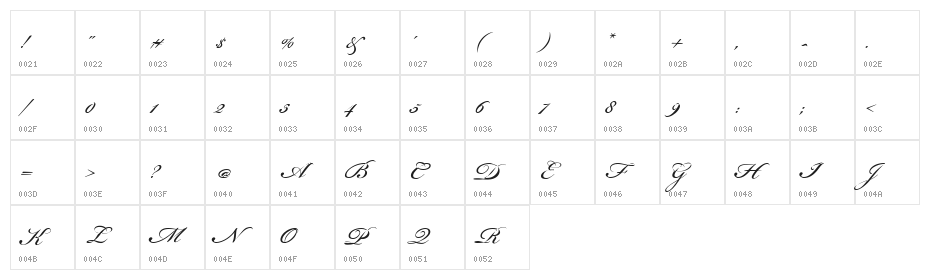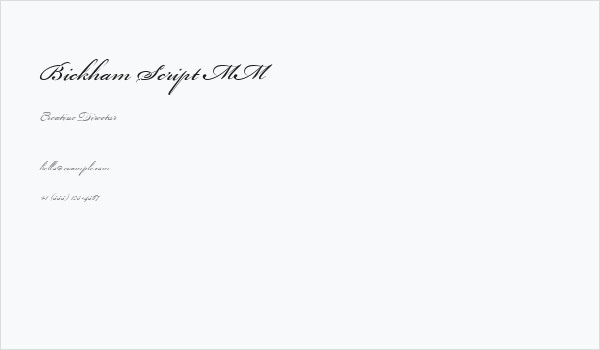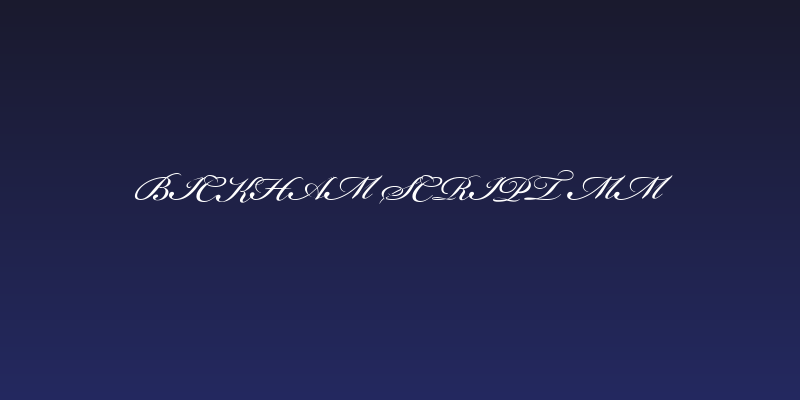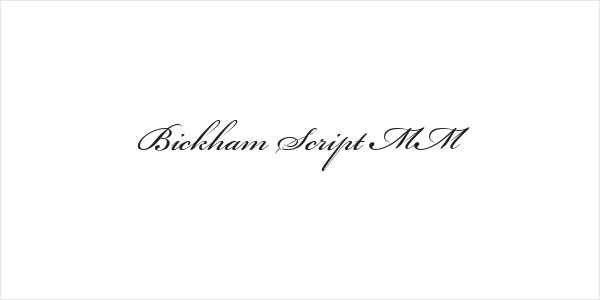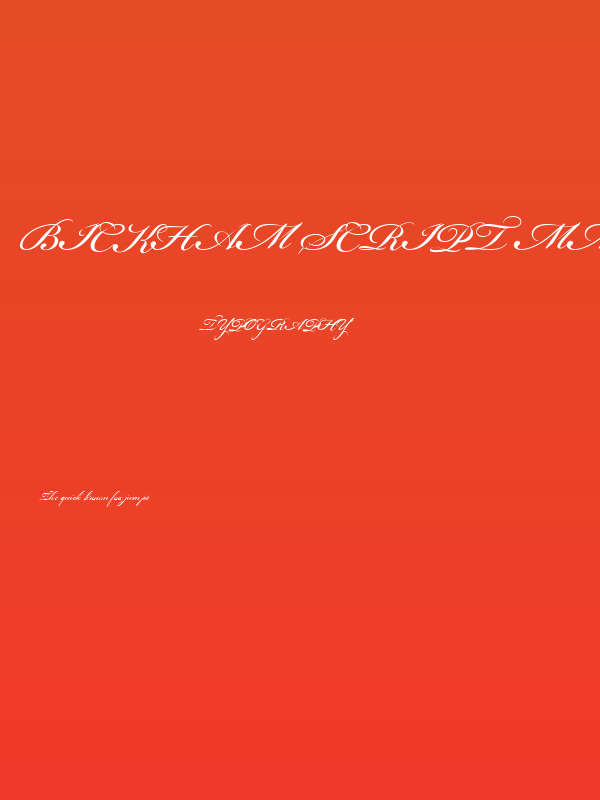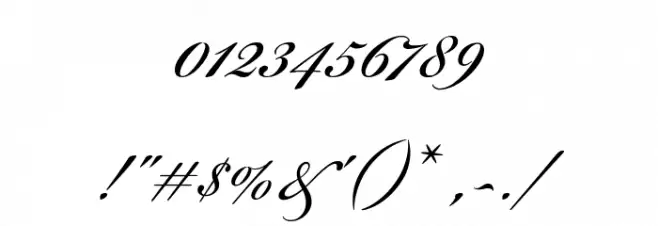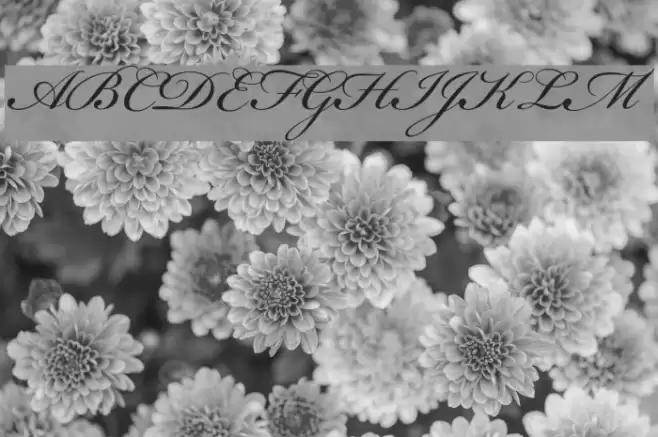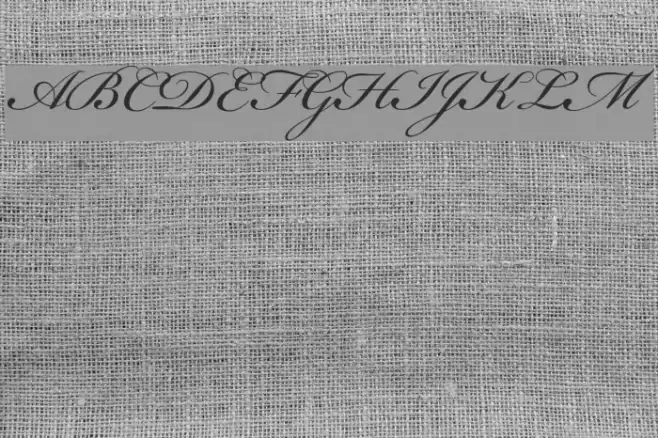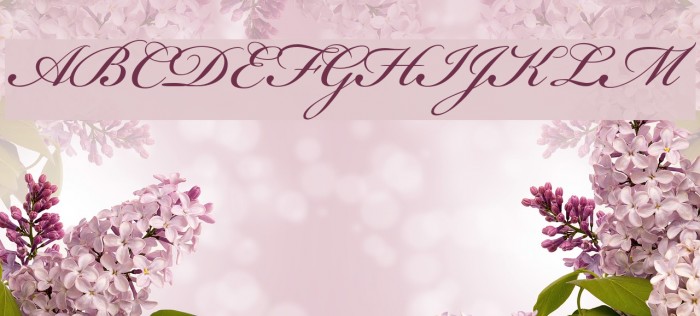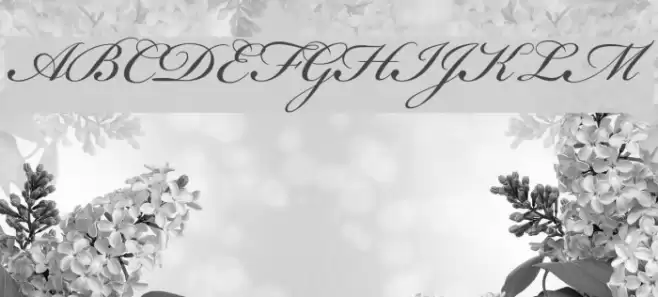
Bickham Script MM Font
Bickham Script MM Description
This elegant script font features intricate, flowing letterforms that exude sophistication and grace. The uppercase letters are adorned with elaborate swashes and flourishes, creating a sense of movement and fluidity. The lowercase letters maintain a consistent style, with smooth, connected strokes that enhance readability while preserving the font's decorative nature. The numerals and special characters are designed to complement the overall aesthetic, ensuring a cohesive look across all text elements. This font is ideal for formal invitations, branding, and any project that requires a touch of elegance and refinement.
| Overall Style | Elegant |
| Use Case | Invitations, Branding, Decorative Text |
| Proposed Projects | Perfect for wedding invitations, luxury branding, elegant stationery, and formal event programs. |